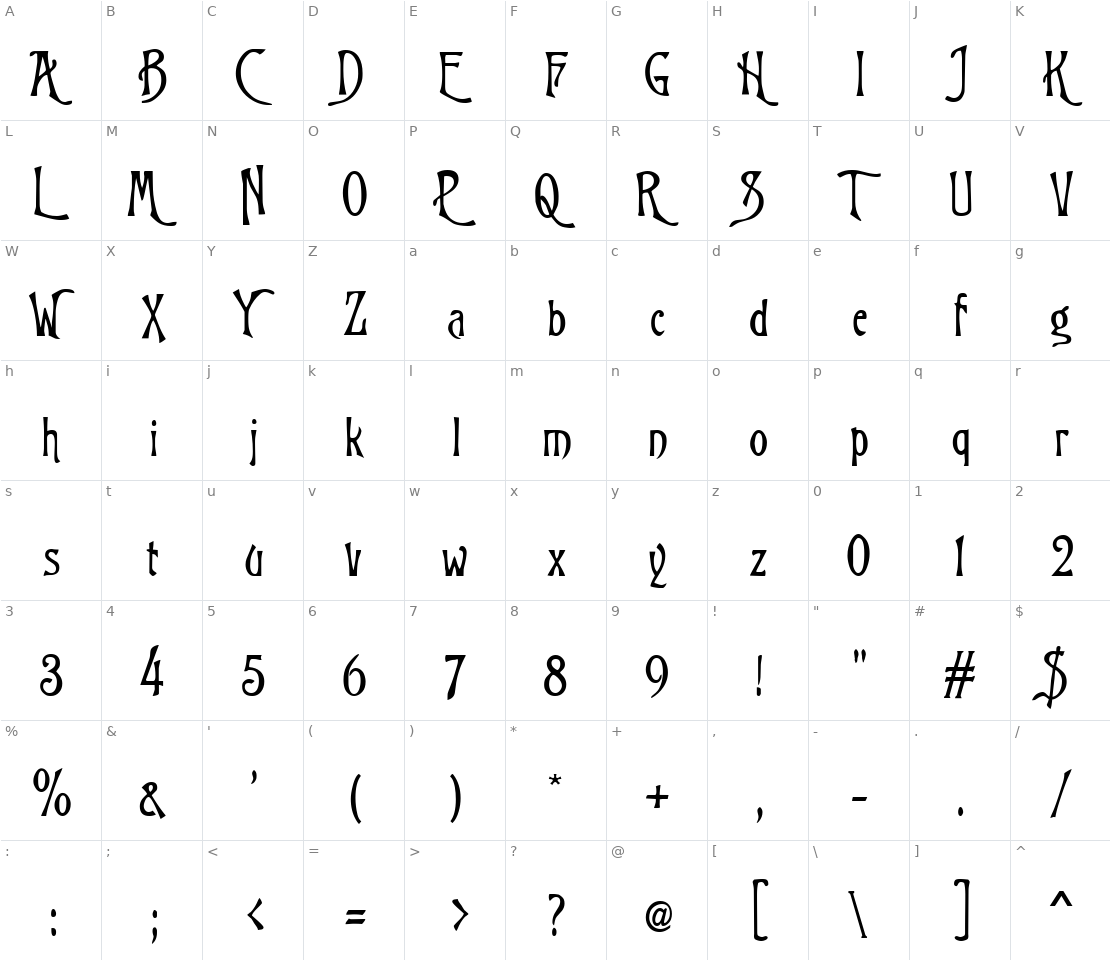
Trinigan FG
Trinigan FG is a narrow, decorative display face from FontGrube AH with letterforms that split the difference between medieval calligraphy and fantasy illustration. The strokes have a quirky, hand-drawn quality that keeps it from feeling like a straight historical revival, leaning more toward storybook and RPG territory. Best used for headlines, titles, and themed design work where you want something that reads as old-world but not entirely serious about it.